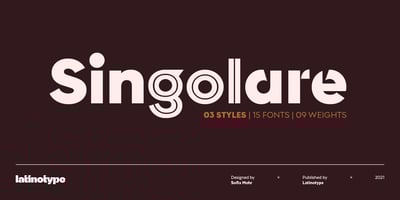
Singolare Font Family was designed by Sofia Mohr and published by Latinotype. Singolare contains 15 styles and family package options. Singolare is a contemporary geometric Sans Serif with angular terminals and a great x height. Its main feature is the style difference between the lighter and heavier weights. The more weight it gains, the higher its singularity.With its weights, styles and layers variety, it’s perfect for display use and short texts that require a visual impact.Singolare is composed by five weights, from Ultralight to Black. Every weight has its own stencil variation with expressive cuts and four decorative versions: three outline and one inline version, that can work on it’s own or overlapped to the black normal version (changing the colors of each layer) in order to amplify its usage possibilities.